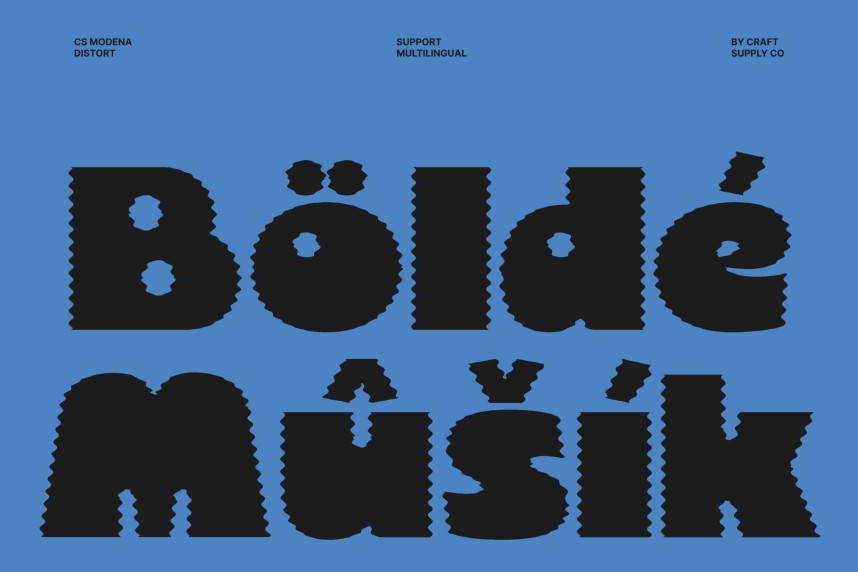
CS Modena Distort Font
CS Modena Distort Font – Classic Sans Serif Display Font: Where Bold Energy Meets Fluid Distortion
Timeless Boldness with Strong Visual Presence
This is a classic sans serif display font that combines timeless simplicity with bold, energetic character. Its confident letterforms, clean construction, and balanced proportions create a striking visual identity that feels both powerful and versatile. Rooted in classic sans serif design, it delivers exceptional readability while making a strong statement in display applications.